Font Sizing Guidelines Part 2: Spacing Considerations
Q. How does font size affect its spacing?
A. In the most recent TypeTalk, we discussed how not all typefaces are suitable for both large and small sizes from a design perspective. But for the ones that can go from text to display (or vice versa) there is one characteristic that can usually benefit from some tweaking – and that is the spacing.
Fonts are spaced and kerned to look their best at their intended size range. However, there are many typeface designs that work well at a range of sizes, but their spacing might leave something to be desired. For example, when display designs are set smaller than their intended size range, they often look too tight. On the other hand, when text typefaces are set at larger sizes, they will progressively appear too open (Figures A and B).
Figure A. When using a very heavy font for small sizes, such as Kabel Black shown below, readability will be greatly improved by opening the tracking. The setting on the left has no tracking, while the one on the right is set at +20 tracking.
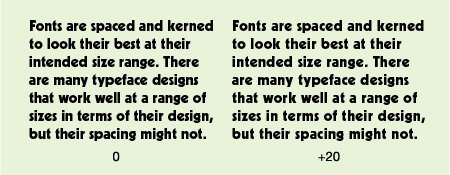
Figure B. The typeface Akko Thin was spaced to look great at smaller sizes, but can also work well at large sizes when the tracking is reduced, as in the lower example set at –55.
To maintain optimum readability, the overall spacing can – and should – be adjusted with the use of tracking. Tracking is the global addition or reduction of the overall letter spacing in a selected block of text, and is a very helpful function for fine-tuning the “color” of your type.
If you’re setting display typefaces at small sizes, the characters will probably get too close and tight, and might even appear to touch. To remedy this, increase the tracking to improve the readability. Conversely, when you set a text typeface at larger sizes, tighten up the tracking to maintain good typographic color and texture.
How much to track? Every font is different, and the tracking value will change depending on how far the type size deviates from its intended range. But it should be a gradual, progressive, and subtle change so that the spacing of all sizes appears to be the same, with the tracking adjustment almost invisible to the eye.
Figures C and D. Helvetica Neue Ultra Light is a very popular display typeface that is often used for text with tight spacing. The readability and overall color is greatly increased when tracking is added in progressive amounts, as can be seen – even on the web – in these “before and after tracking” versions.